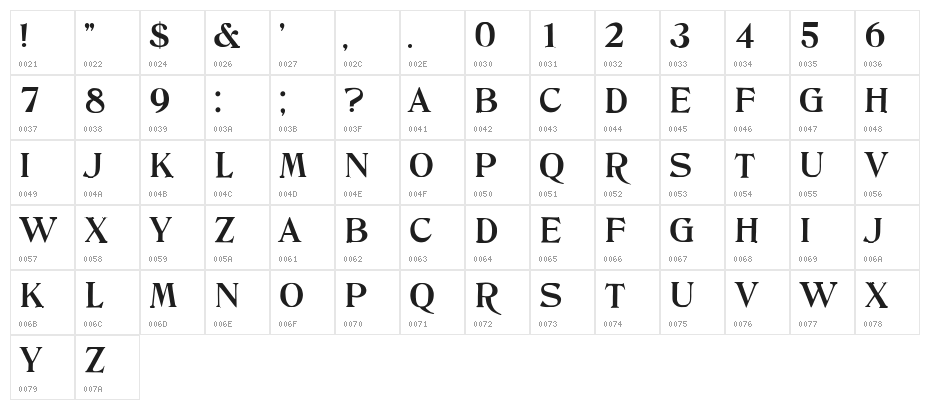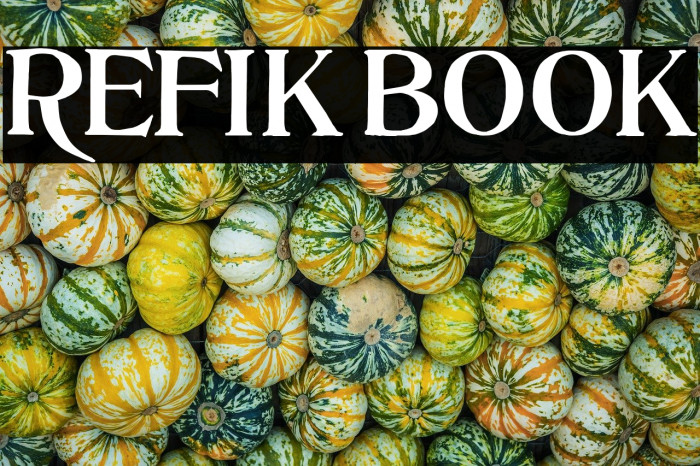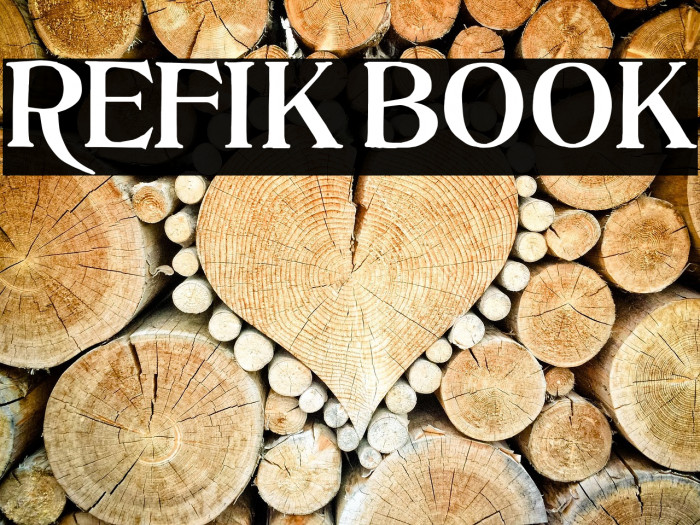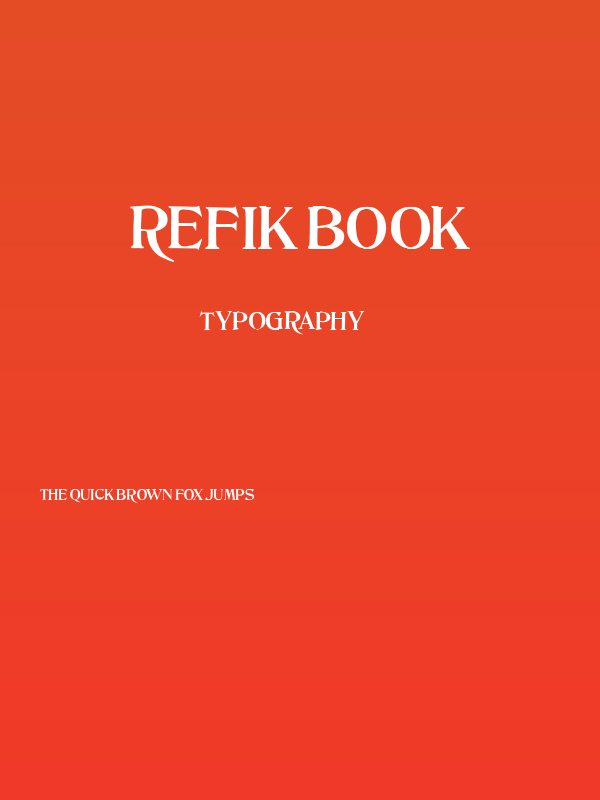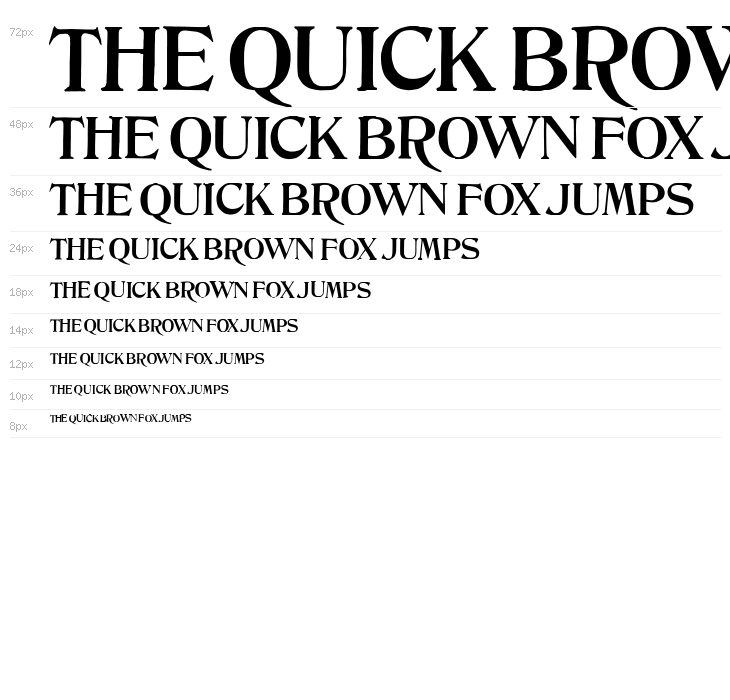
Refik Book Font
Refik Book Description
This font features a bold and dynamic style with sharp, angular serifs that give it a distinctive and authoritative appearance. The uppercase letters are robust and commanding, while the lowercase letters maintain a consistent weight and style. The numerals are equally bold, ensuring they stand out in any context. The special characters are designed to complement the overall aesthetic, with a unique flair that adds to the font's personality. This font's strong presence makes it ideal for impactful designs.
| Proposed Projects | Ideal for headlines, branding, posters, and any design requiring a strong, authoritative typeface. |